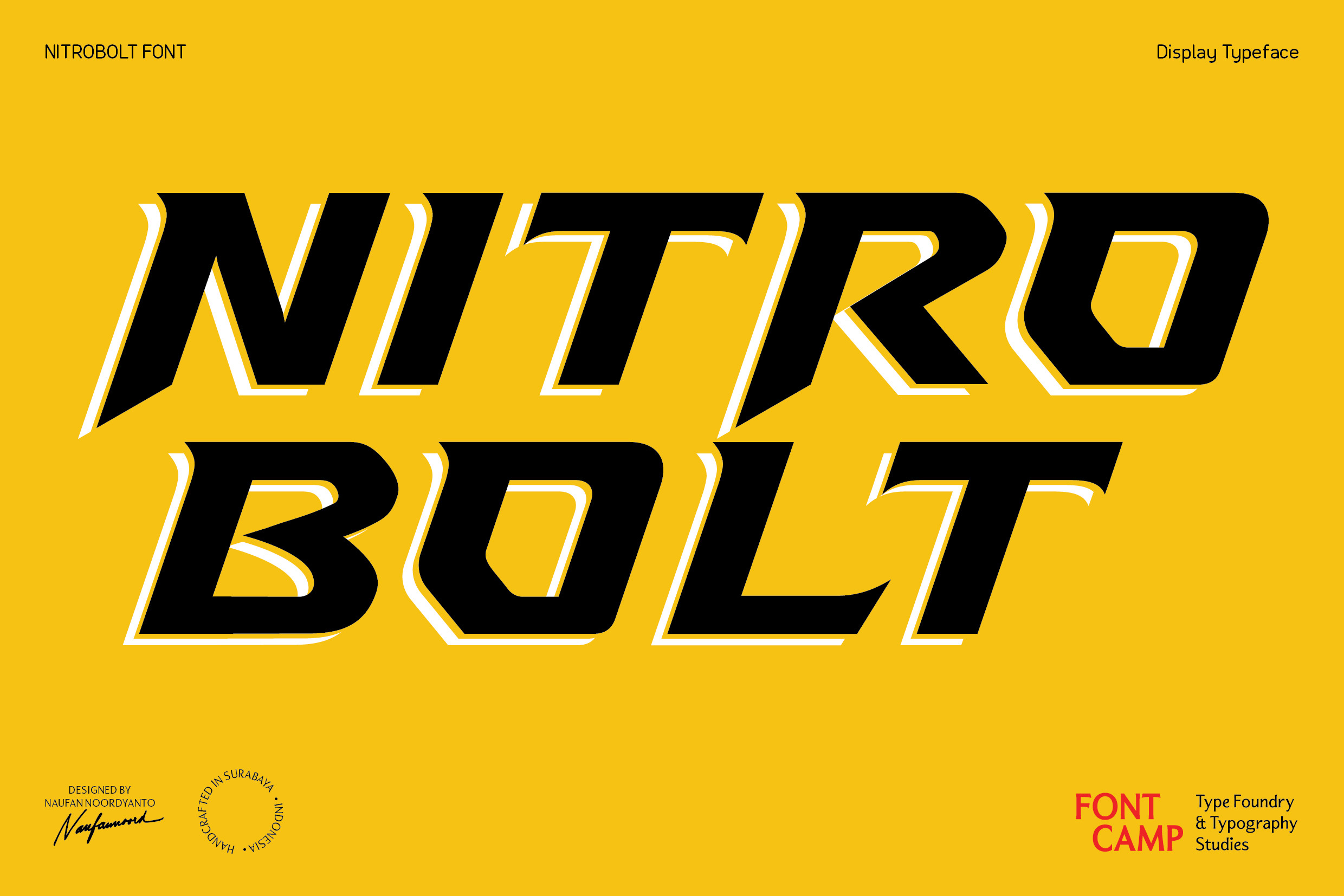
Nitrobolt Font
Introducing an "NITROBOLT" Font.
"Nitrobolt" is a dynamic and bold typeface characterized by its sharp angles, forward slant, and thick strokes, evoking a strong sense of speed and energy. Beyond its natural fit for projects looking to convey a fast, tech-forward, or athletic identity, this versatile font serves as an excellent companion for automotive-themed designs. Whether it is used for classic car restorations, modern car customization branding, or motorsport event graphics, its sleek lines bring a touch of powerful machinery and high-octane passion to the page.
It adapts beautifully to esports team logos, extreme sports apparel, and cinematic title designs, offering a distinct edge without overpowering the core message. "Nitrobolt" is crafted for creators who want to subtly inject momentum, precision, and a modern aesthetic into their visual storytelling, making it a reliable asset for any contemporary design toolkit.
Expansive character library: engineered with 367 meticulously crafted glyphs, providing full coverage for high-impact displays, symbols, and comprehensive punctuation.
Commanding All-Caps design: specially structured as a full uppercase typeface, optimized for heavy headlines, bold logotypes, and tactical branding.
Global linguistic support: built with an extended character set to ensure seamless compatibility with multiple languages.